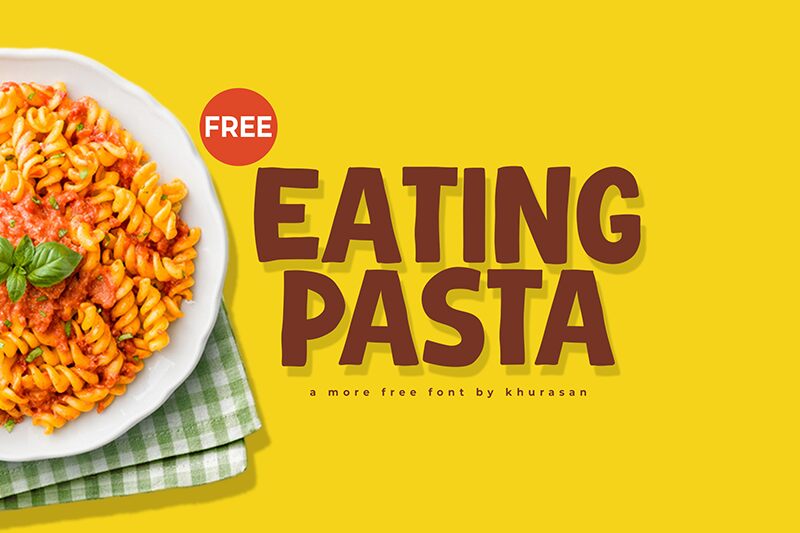
This is Eating Pasta, a display typeface designed and shared by Khurasan. The cartoon style font comes with one weight and includes 108 letters, numbers, and symbols.
Use the uppercase letters from Eating Pasta to create eye-catching logotypes for fun projects such as children’s books, animated series, cartoons, and educational websites; and make the letters your starting point to create memorable book covers, posters, or magazine headlines. Download the free version today!